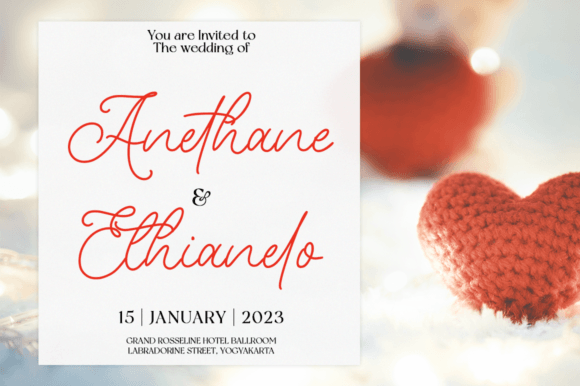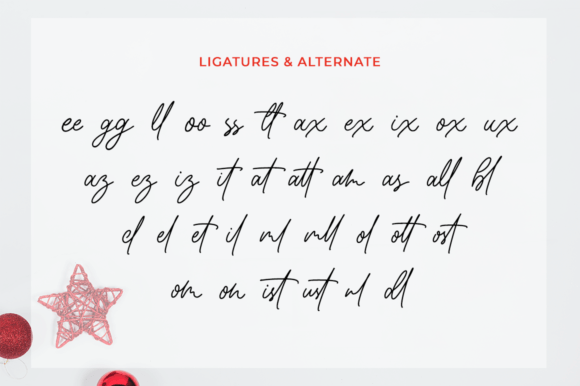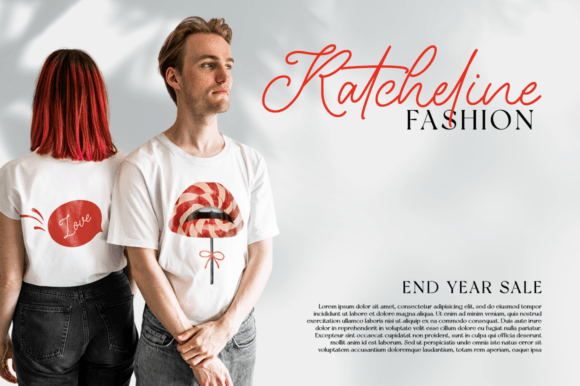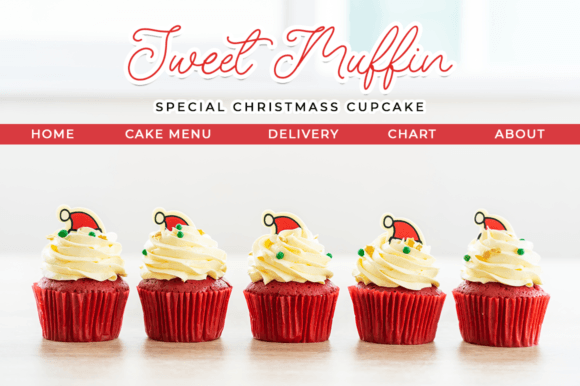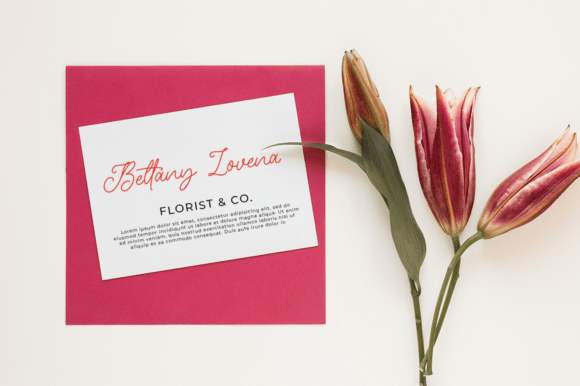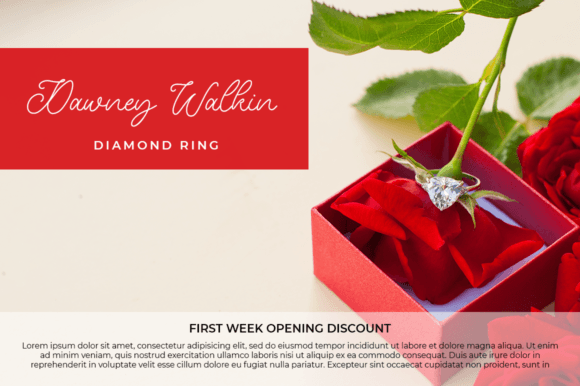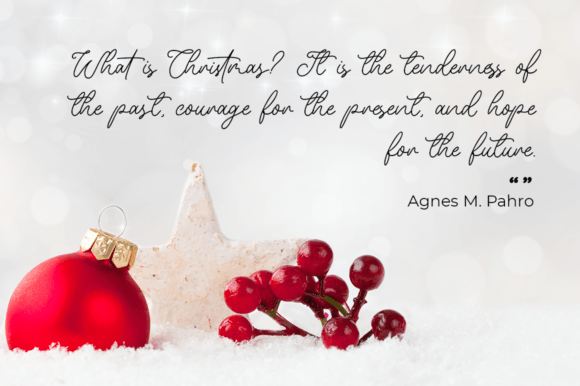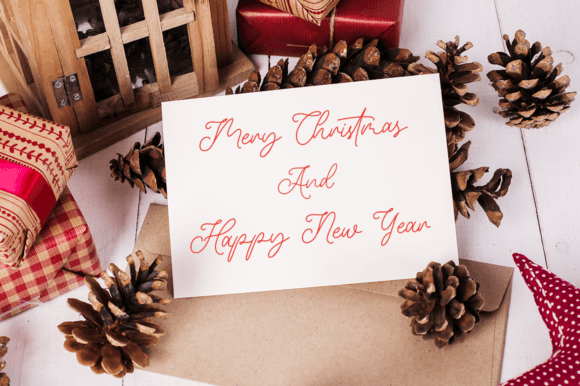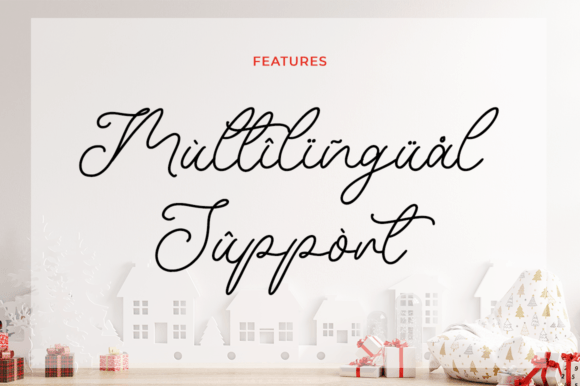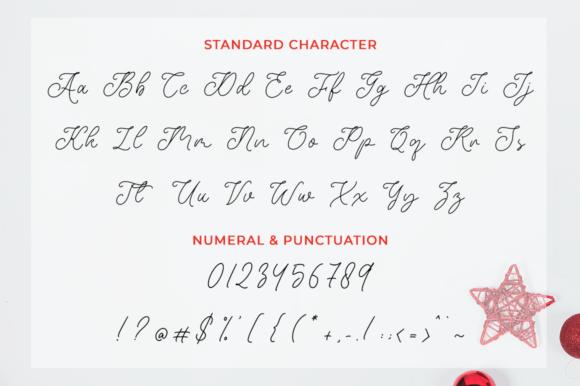
Christmas Time Font
About Christmas Time Font
Christmas Time is a stylish handwritten font designed to bring warmth and charm to your creative projects. With its flowing script and elegant form, this font is perfect for holiday-themed creations, but its versatility also makes it suitable year-round. Whether you’re designing greeting cards or crafting brand visuals, the Christmas Time font download adds a customized, heartfelt feel.
Elegant Handwriting with Festive Flair
The font features beautifully curved letterforms with a modern calligraphic touch. It combines festive cheer with a refined elegance, making it ideal for seasonal and everyday designs alike. Its natural handwritten quality offers a welcoming tone that enhances any message or artwork.
Perfect For a Variety of Projects
Christmas Time is incredibly flexible and works seamlessly across a wide range of design applications. Consider using it for:
• Holiday Cards – Christmas, New Year, and winter-themed greetings
• Wedding Invitations – Elegant and romantic calligraphy for your big day
• Quotes and Social Media Graphics – Add personal flair to Instagram and Pinterest posts
• Branding and Logos – Stylish enough for boutique branding
• Business Cards – Adds a soft, custom touch to your professional identity
• Thank You Notes – Make your gratitude beautifully clear
• Gift Tags and Product Labels – Perfect for handmade or seasonal items
No matter the medium, the Christmas Time font download helps bring your ideas to life with charm and class.
Font Features and Compatibility
This font is PUA encoded, meaning all special characters, swashes, and alternates are fully accessible even in design programs that don’t support OpenType features. It includes:
• Uppercase and lowercase characters
• Punctuation and numbers
• Multilingual support
• Elegant ligatures and stylistic sets
• Easy access to swashes and alternate glyphs
This font strikes the perfect balance between personal and professional. It’s festive enough for holiday cards yet refined enough for elegant stationery or branding. Whether you’re designing for clients, loved ones, or personal use, this font will help you create a stunning visual impression.
Add a festive elegance to your designs with the Christmas Time font download. From winter holidays to heartfelt messages, its charming handwritten style brings warmth and personality to every project.